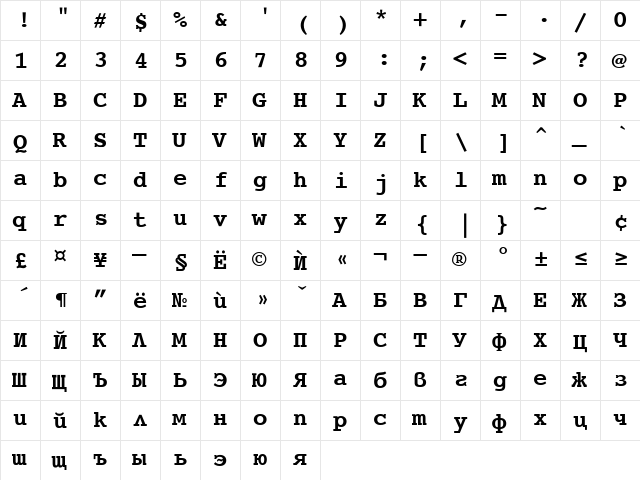
CourierET Bold Font Preview
CourierET Bold
Design Context for CourierET Typeface
CourierET uses fixed-width spacing throughout, giving it the structured, systematic character associated with coding environments and technical documentation. Its bold stroke weight gives it real presence on the page.
Pro Tip: Pair CourierET with a proportional sans for UI contexts where code-style labels and regular body copy need to coexist.